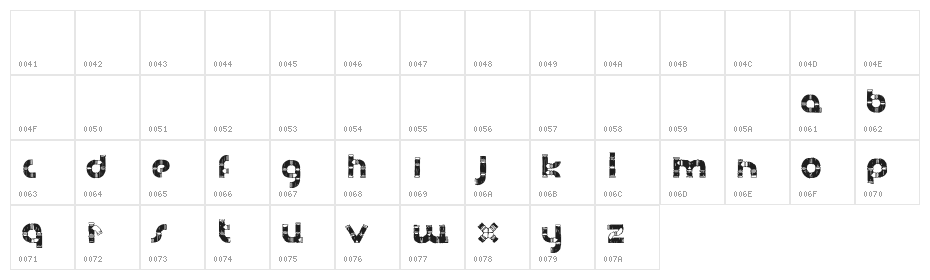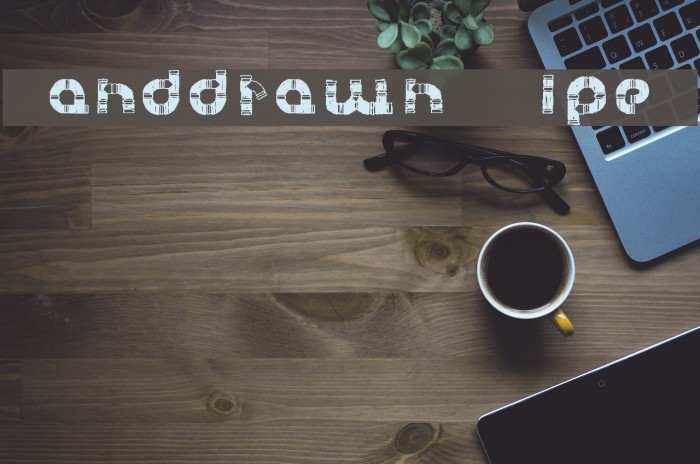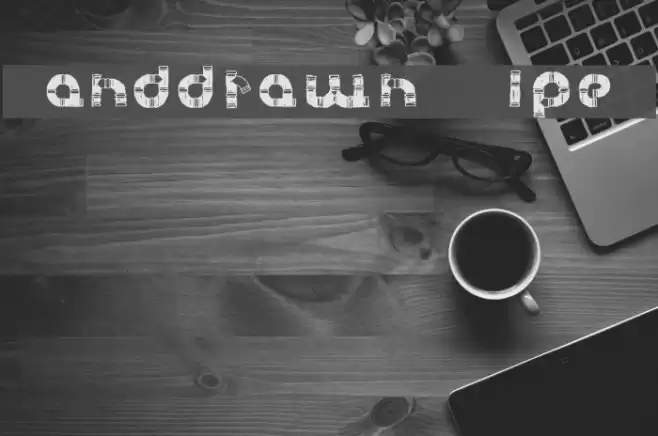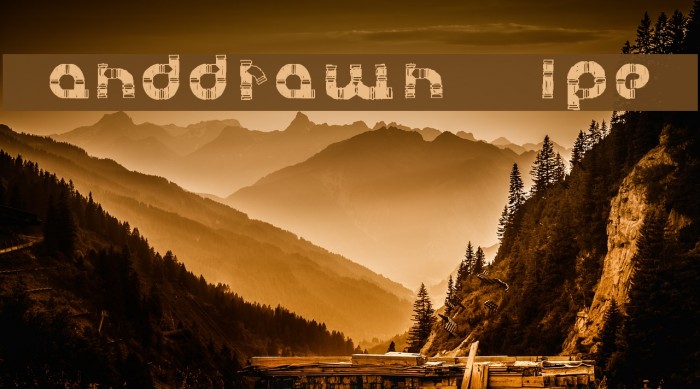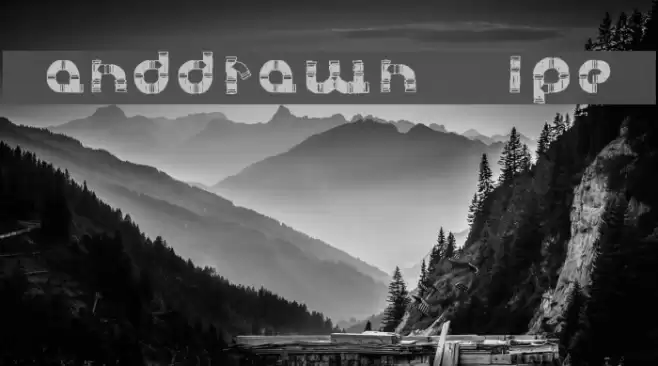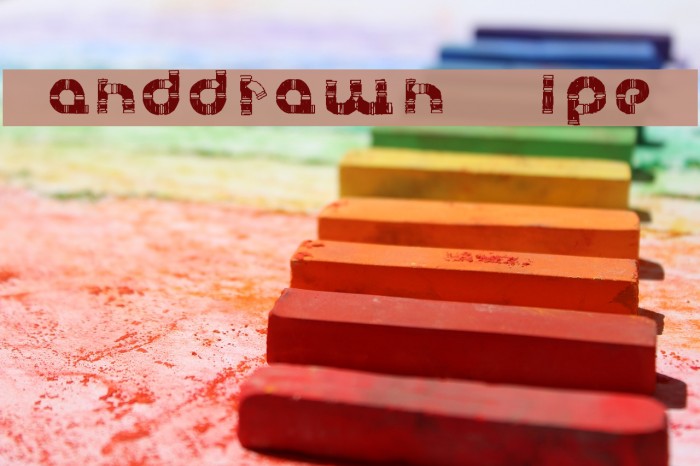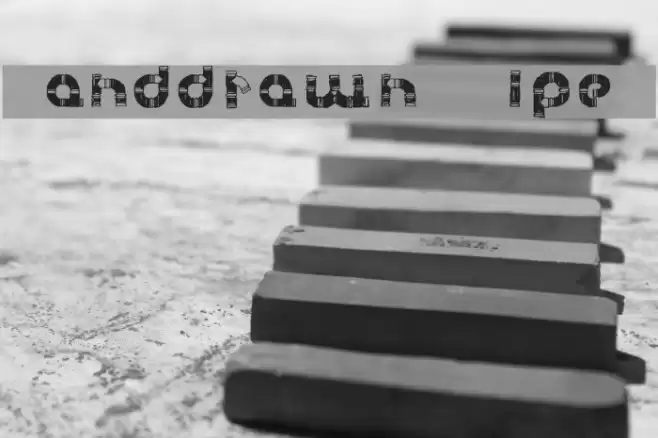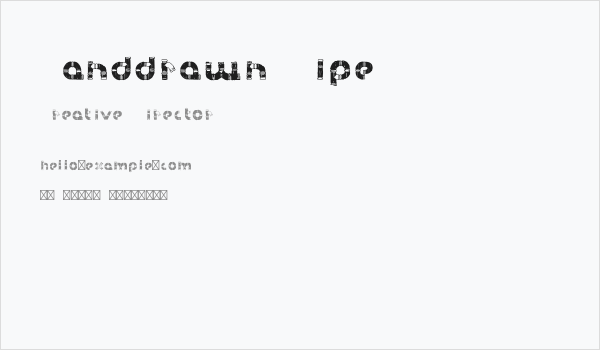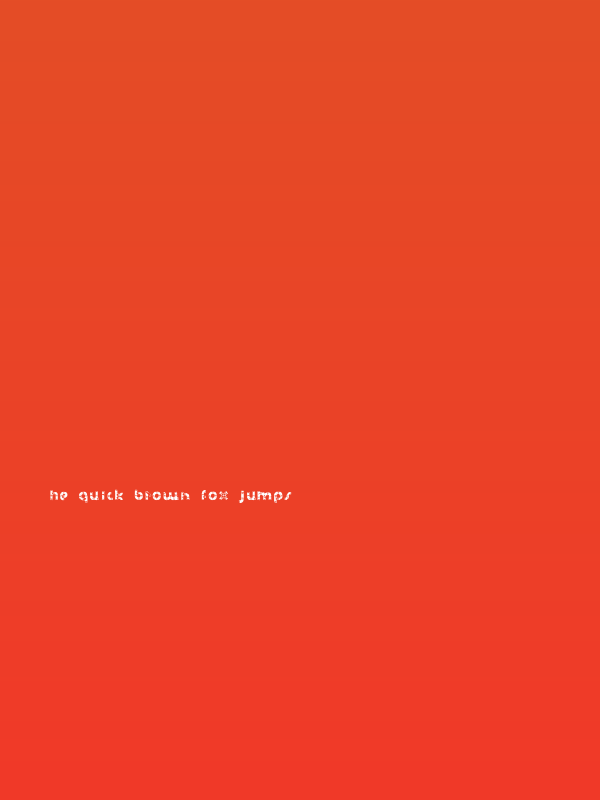
Handdrawn Pipe X Font
Handdrawn Pipe X Description
This font features a unique, hand-drawn style with a playful and artistic flair. Each character is composed of pipe-like structures, giving it an industrial yet whimsical appearance. The letters are bold and have a consistent thickness, with intricate details that add depth and texture. The font is highly decorative, making it suitable for creative projects that require a distinctive and eye-catching typeface. Its handcrafted look suggests a personal touch, ideal for designs that aim to convey creativity and originality.